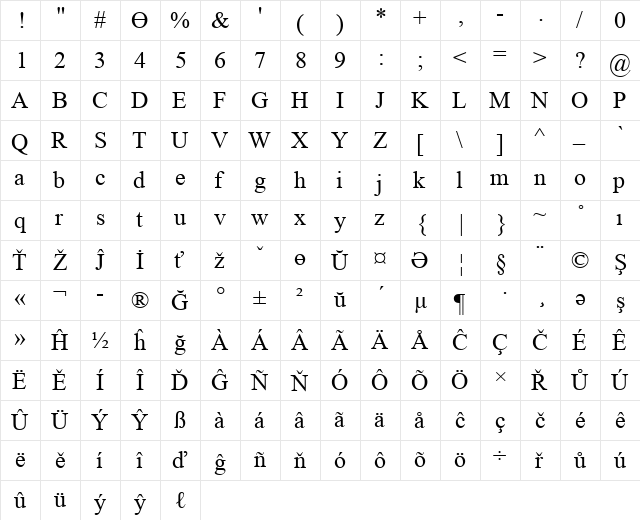
Liborsoft International Regular
| Foundry | Liborsoft Typography |
| Designer | Libor Sztemon |
Design Context for Liborsoft International Typeface
Liborsoft International takes a measured approach to typography — its balanced proportions and neutral character make it a reliable workhorse for both digital and print work.